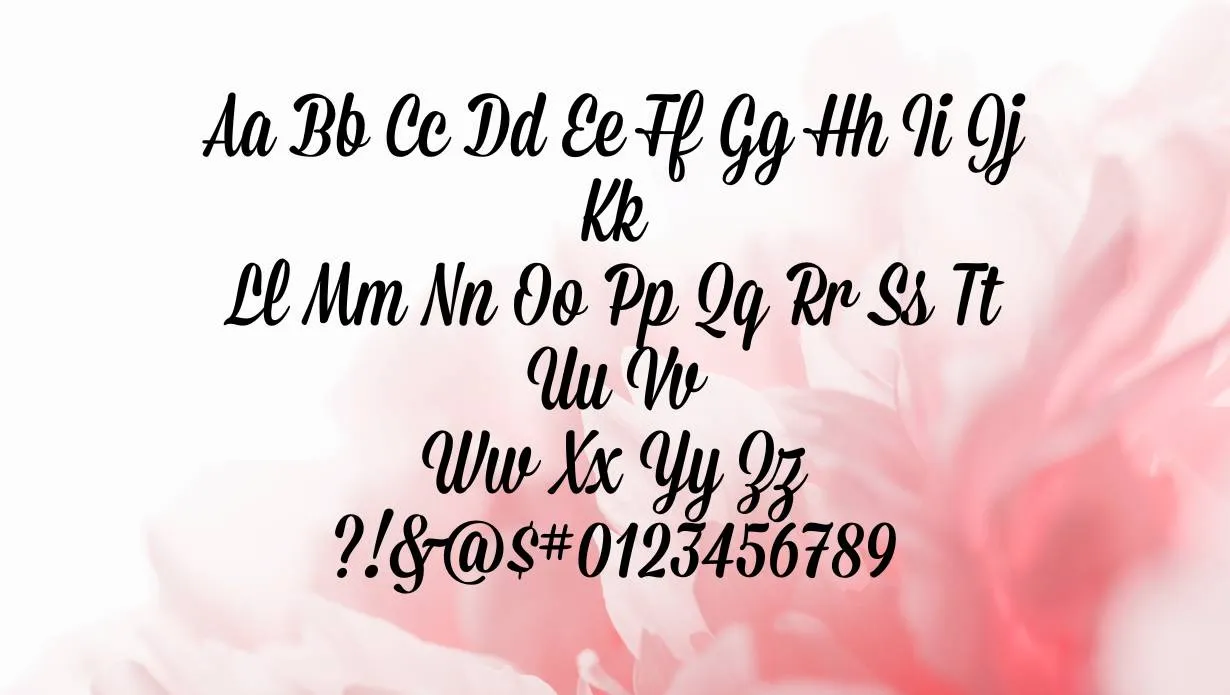
Mission Script Font is a stylish cursive for your words, bringing a sense of elegance and flair to your writing. Its refined appearance is perfect for projects where you want your words to exude sophistication.
It’s like dressing your words in a fancy outfit – Mission Script Font ensures that your writing looks polished and graceful. With a touch of sophistication, this font turns your words into a stylish and elegant expression, creating a captivating and refined atmosphere.
| Name | Mission Script Font |
| Designer | James T. Edmondson |